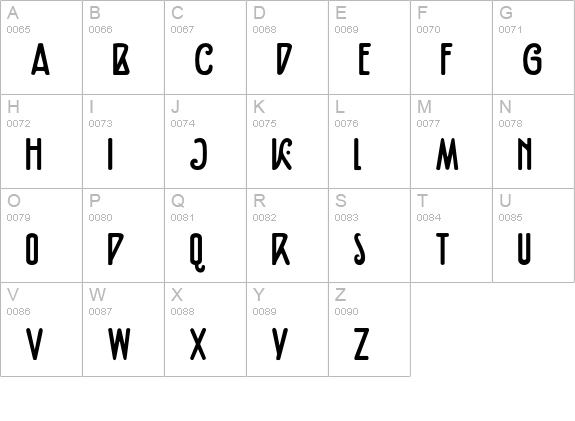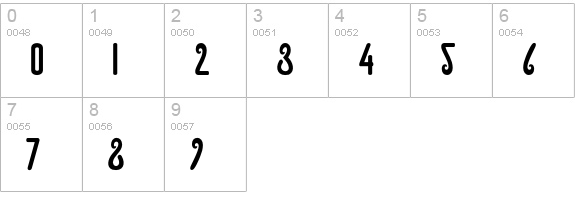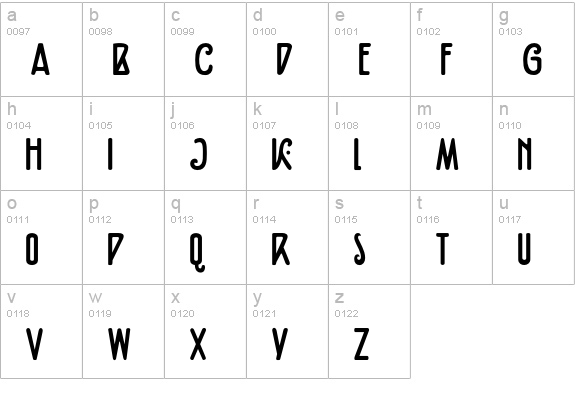
Introducing DK Fiebiger Eins, a visually captivating and versatile font that exudes elegance and sophistication. This typeface is the perfect embodiment of modern design combined with timeless appeal. With its sleek lines and impeccable attention to detail, DK Fiebiger Eins effortlessly captures attention and makes a lasting impression. Featuring a unique blend of sharp edges and graceful curves, this font strikes the perfect balance between professionalism and creativity. Its bold and confident appearance is ideal for a wide range of design projects, from corporate branding and advertising to editorial layouts and social media content. One of the most remarkable aspects of DK Fiebiger Eins is its versatility. Whether used in headlines, body text, or even as a decorative element, this font adapts flawlessly to any context. Its extensive character set includes uppercase and lowercase letters, numbers, punctuation marks, and an array of special symbols, ensuring maximum flexibility in your creative endeavors. But what truly sets DK Fiebiger Eins apart is its accessibility. This font is freely available to download at FontsMarket.com, making it an invaluable asset for both professional designers and casual enthusiasts. The easy-to-use download process allows you to quickly incorporate this stunning font into your projects and elevate them to new heights of visual excellence. With DK Fiebiger Eins, your designs will effortlessly captivate and engage audiences. Its elegant yet modern aesthetic will add a touch of sophistication to any project, making it the perfect choice for those seeking a font that seamlessly merges style and professionalism. Download DK Fiebiger Eins today from FontsMarket.com and unlock the limitless possibilities it offers for your creative endeavors.